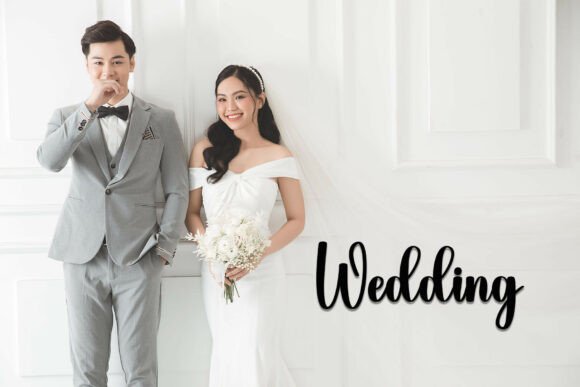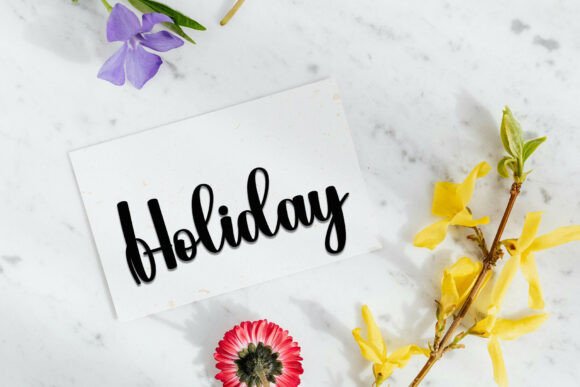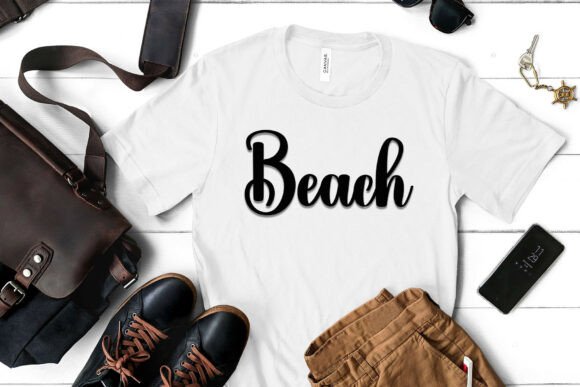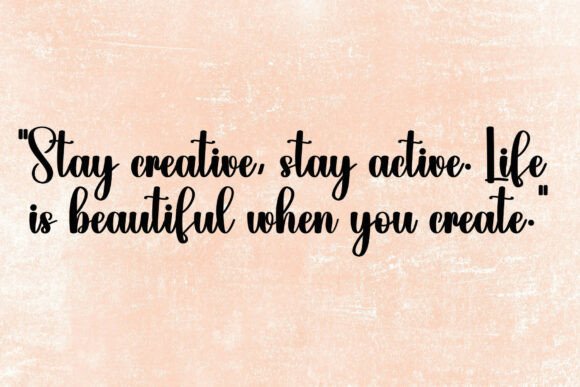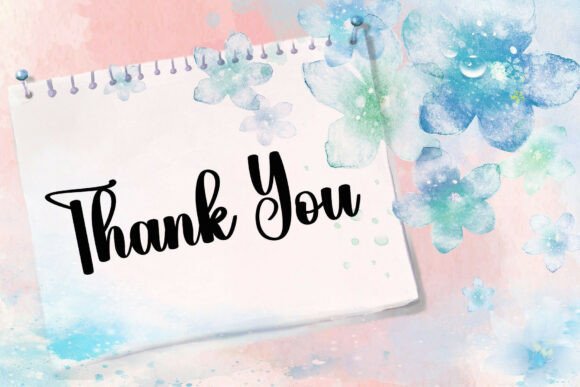
Celebrate the Festive Spirit with the Candy Christmas Font
It’s that time of the year again – the holiday season is in full swing, and you’re itching to get creative with your festive projects. You’ve spent hours browsing through Pinterest boards, collecting ideas for your DIY decorations, gift tags, and social media posts. But what’s missing is the perfect font to bring your vision to life. This is where the Candy Christmas Font comes in – a delightful, handwritten font that embodies the warmth and cheer of the holiday season.
Designed to evoke a sense of friendliness and approachability, the Candy Christmas Font is perfect for adding a personal touch to your creative projects. Whether you’re a graphic designer, a crafty DIY enthusiast, or simply a social media enthusiast, this font will help you create visually appealing and engaging content that captures the essence of the holiday season.
- Unique Characteristics: Whimsical, cursive script with festive holiday elements, perfect for adding a playful touch to Christmas-themed designs.
- Font Style: Script, making it ideal for creating invitations, greeting cards, and other holiday-themed materials.
Candy Christmas Font Review
I was excited to dive into the “Candy Christmas Font” and see what it had to offer. Overall, I’d say it’s a fun and playful font that’s perfect for the holiday season. ✨ Here are some things that work well:
- Eye-catching and unique characters: The font has some really creative and fun characters that add to its festive feel.
- Perfect for social media and marketing: If you’re looking for a font to use on social media or in marketing materials, this one is a great choice.
- Easy to read: Despite its playful nature, the font is still easy to read and understand.
- Not ideal for body text: While the font is great for headlines and titles, it may not be the best choice for large blocks of text.
- May not be suitable for all audiences: Some of the characters may not be suitable for younger children or conservative audiences.
- Does not come with a lot of different font weights and styles
Overall, I think the “Candy Christmas Font” is a great choice for anyone looking for a fun and festive font for their holiday marketing or social media campaigns. Just be aware of its limitations and use it thoughtfully.
For optimal results, use the Candy Christmas Font in conjunction with bold or italic text styles to create visually appealing headings and titles. Experiment with different font sizes and colors to add depth and dimension to your designs.
The Candy Christmas Font is ideal for holiday-themed designs, such as Christmas cards, gift tags, and social media graphics. It can also be used for general winter-themed designs, such as snowflakes, snowmen, and hot chocolate graphics.